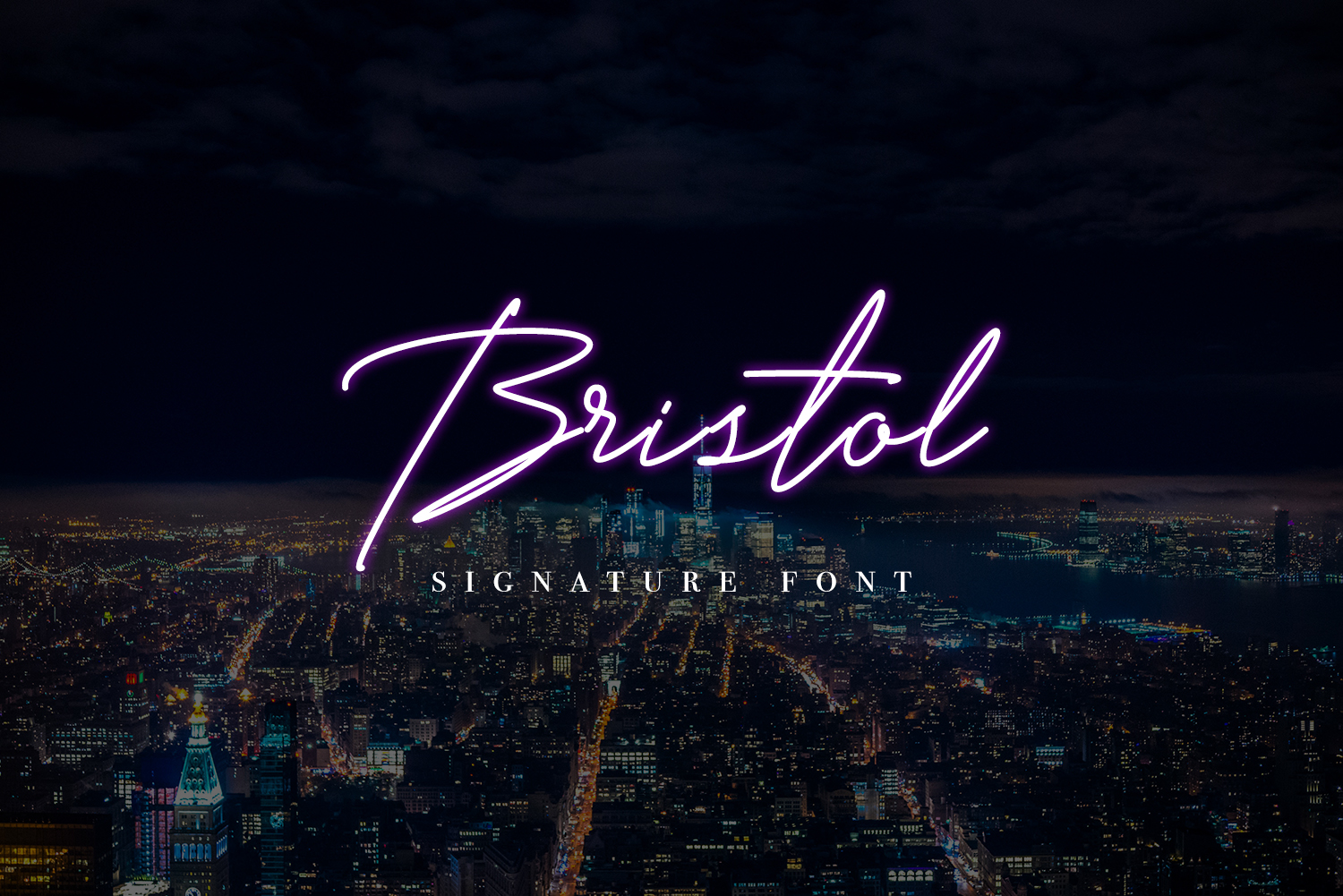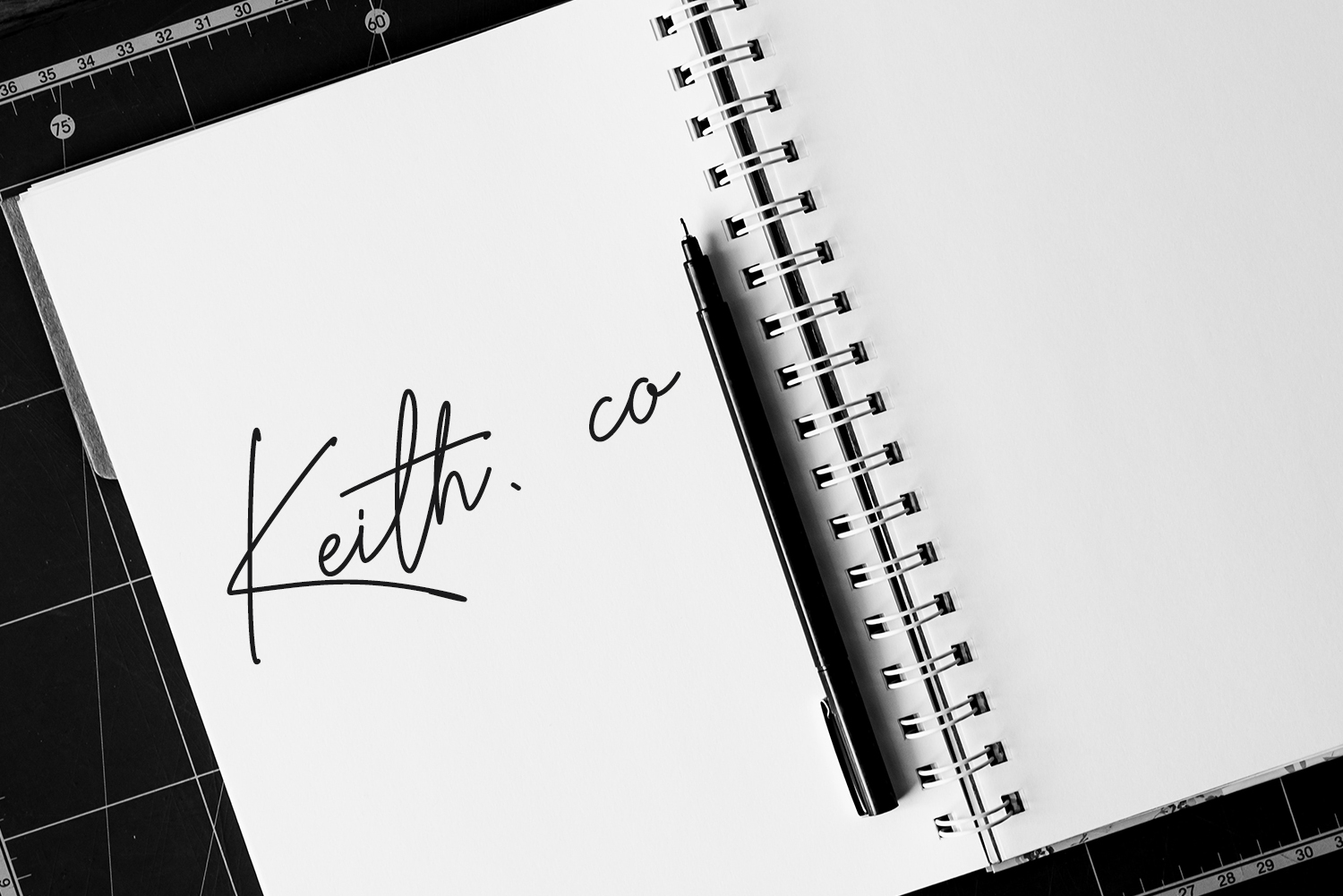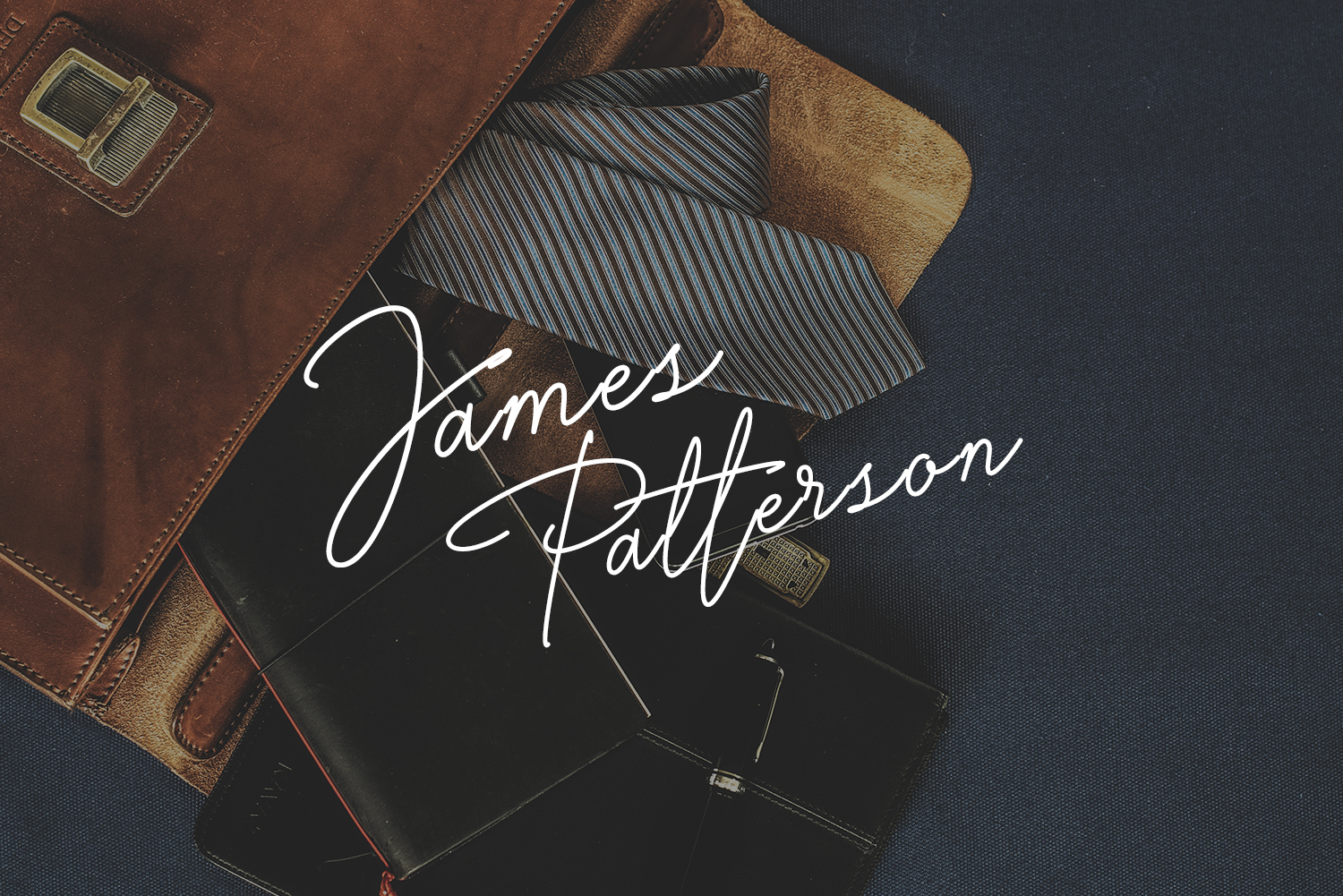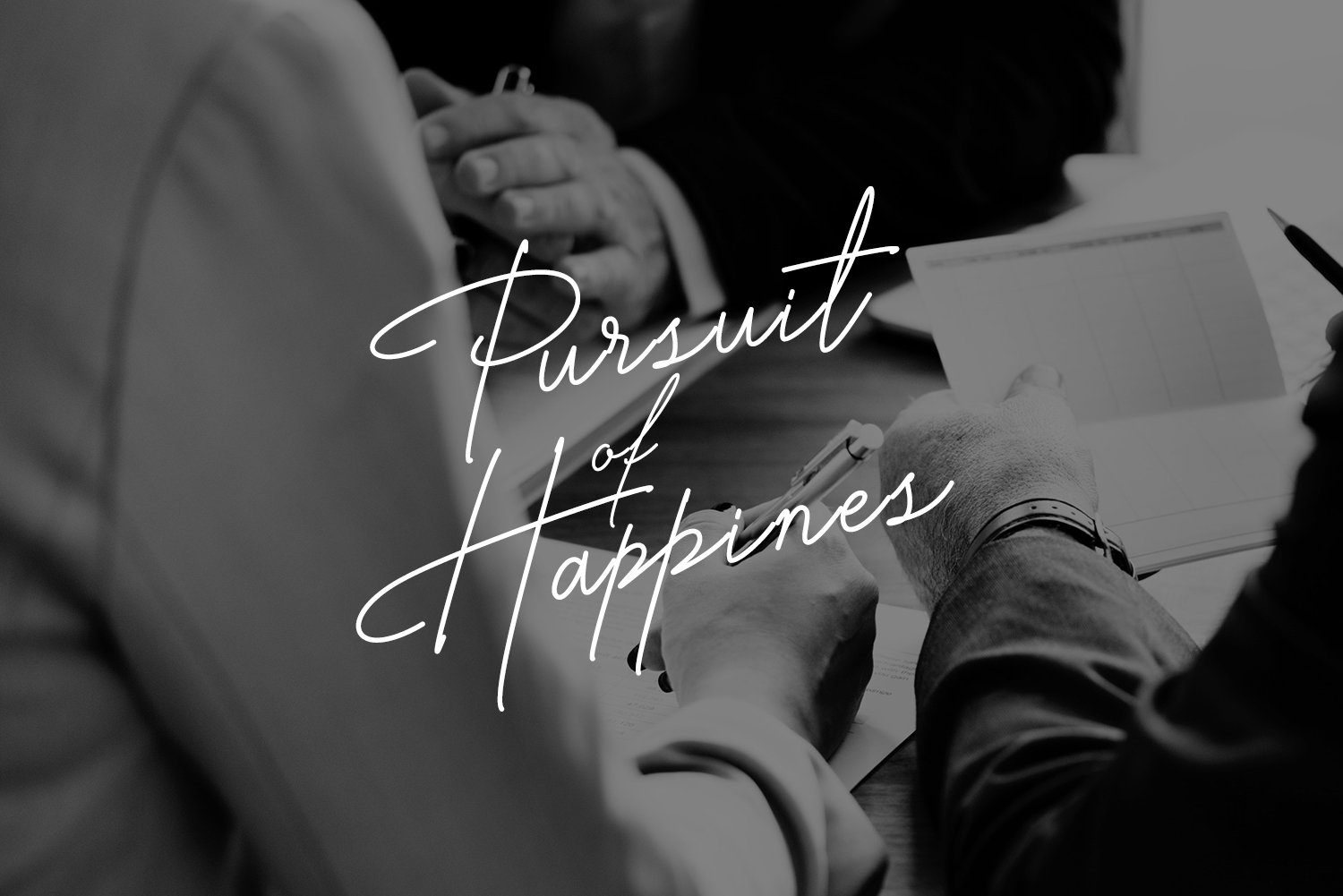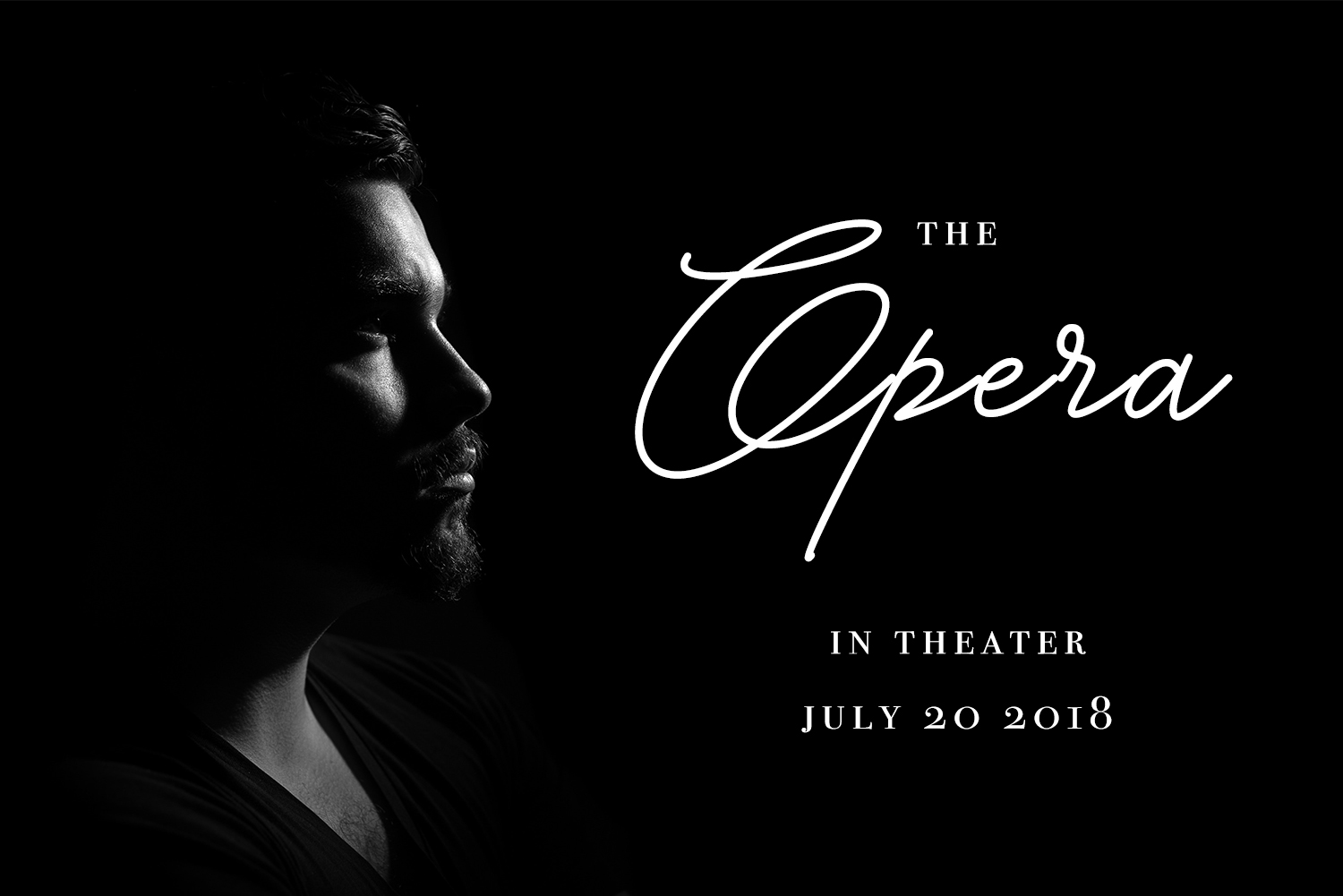
Bristol Signature Font
About Bristol Signature Font
=Bristol Signature is an elegant and well-crafted font, created with a monoline style to give it a natural appeal. This font looks great across a wide range of designs, and gives an easy luxe appeal.